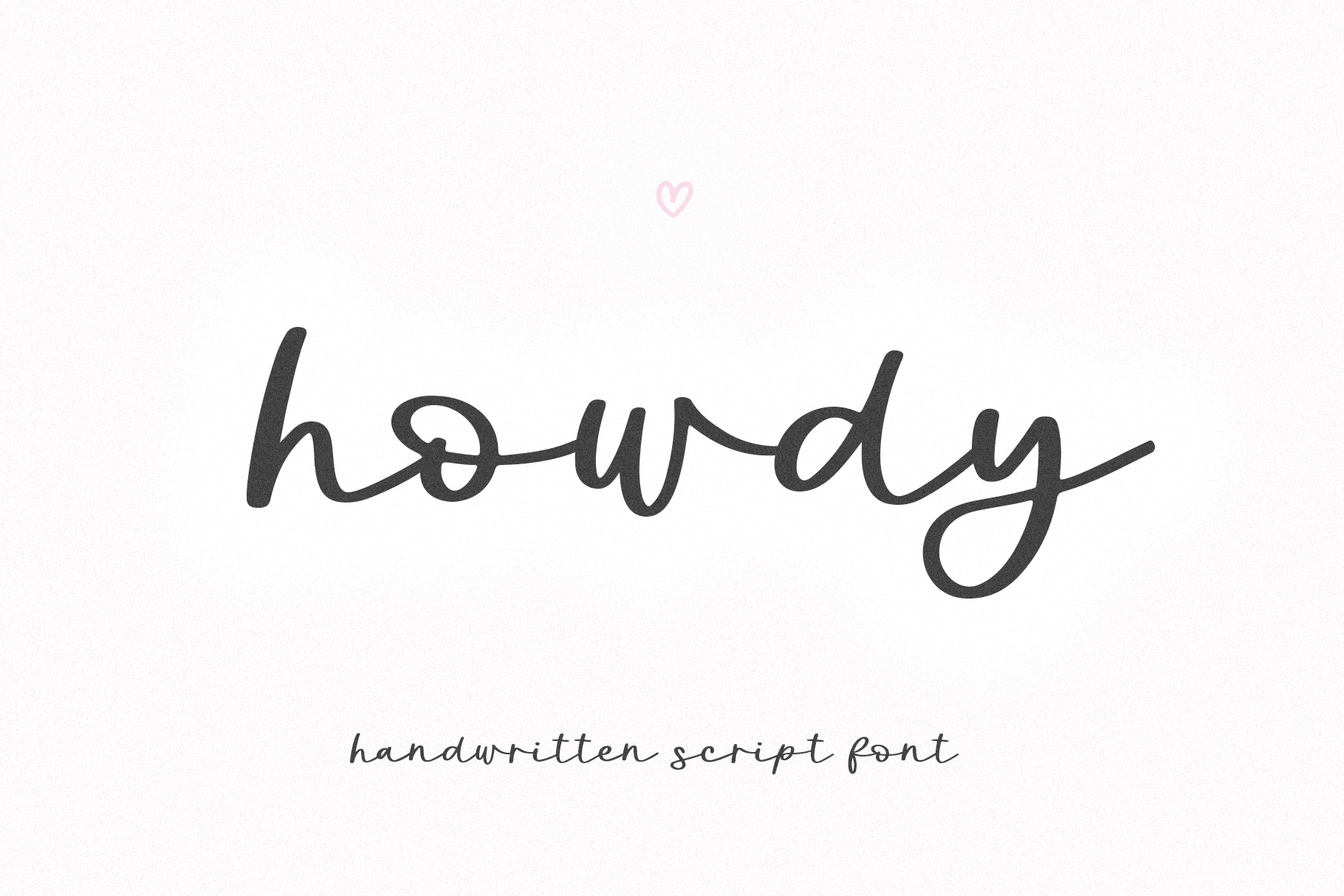
Howdy | Handwritten Script Font
Howdy is a handwritten script font.
This font is perfect for your craft projects, svg files, farmhouse designs, wedding decor, logos, quotes and more!